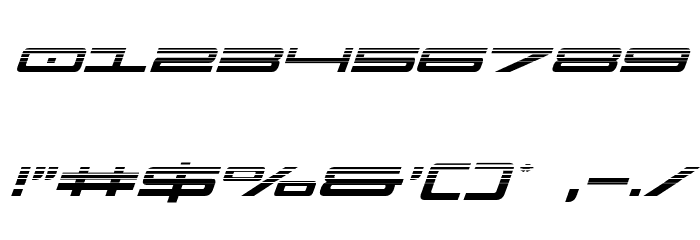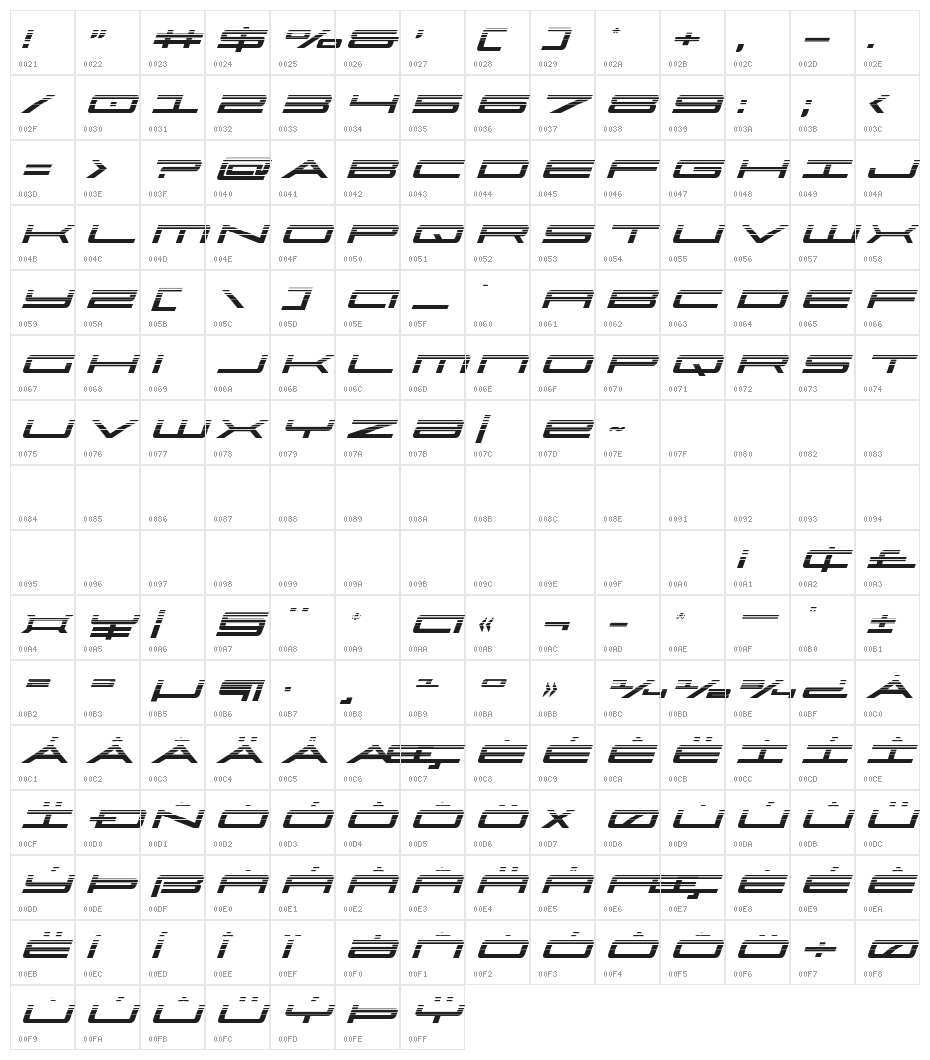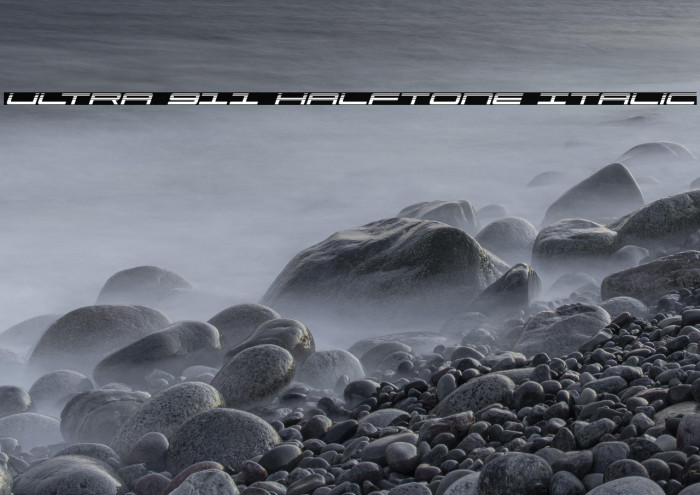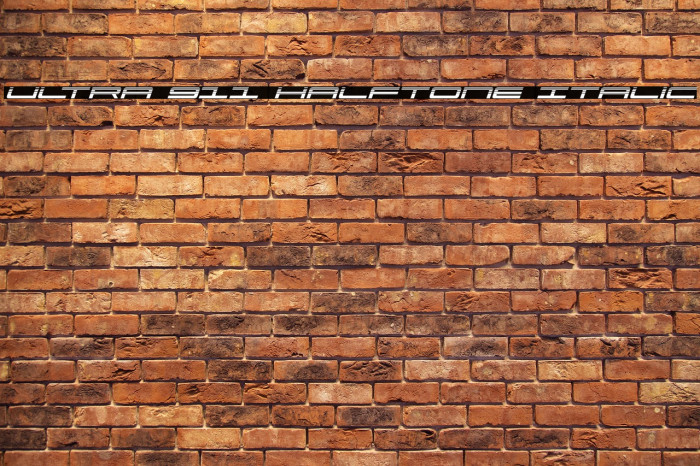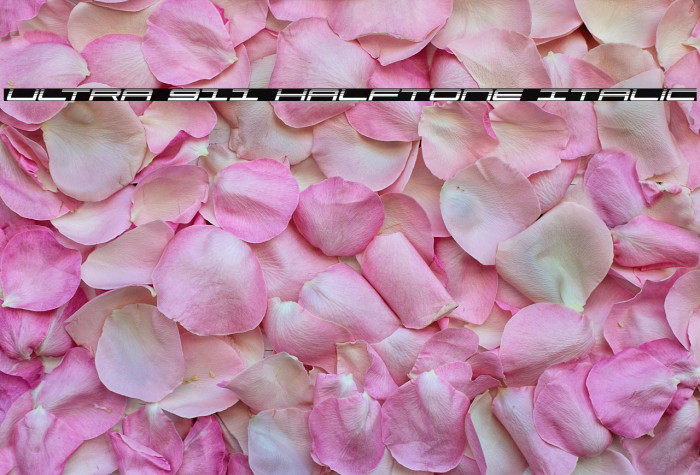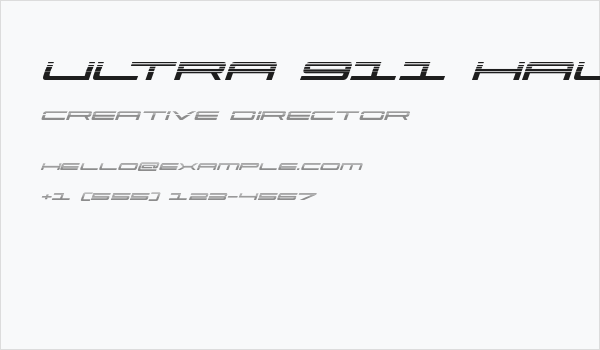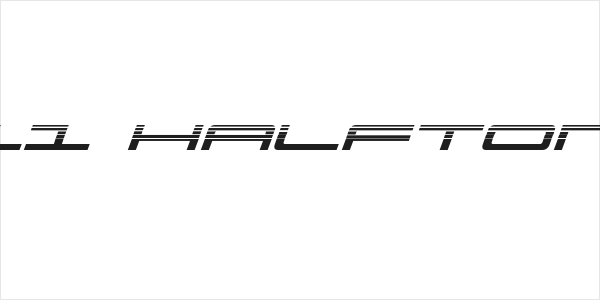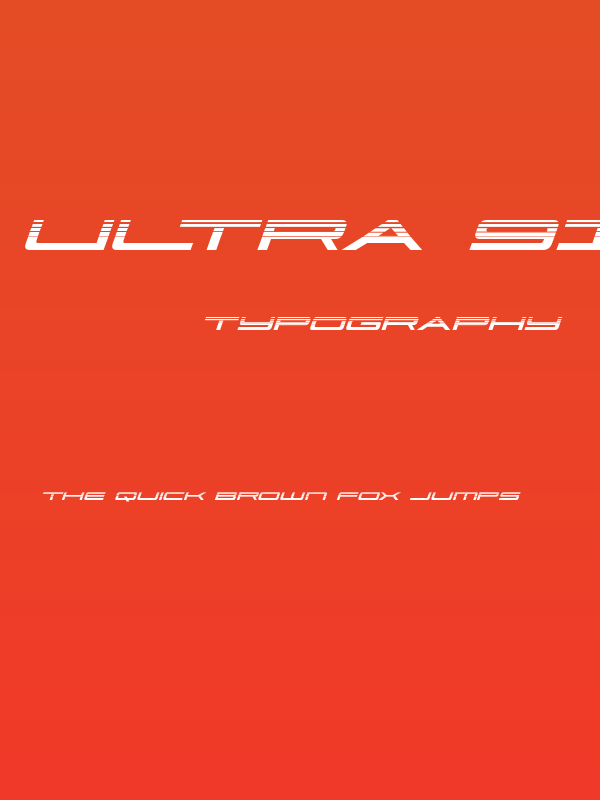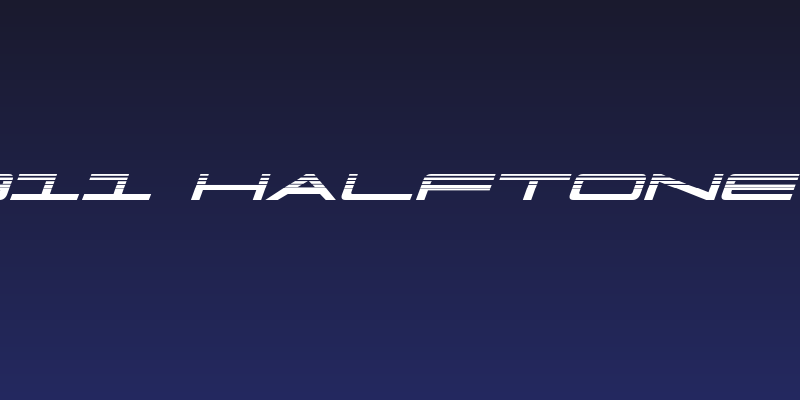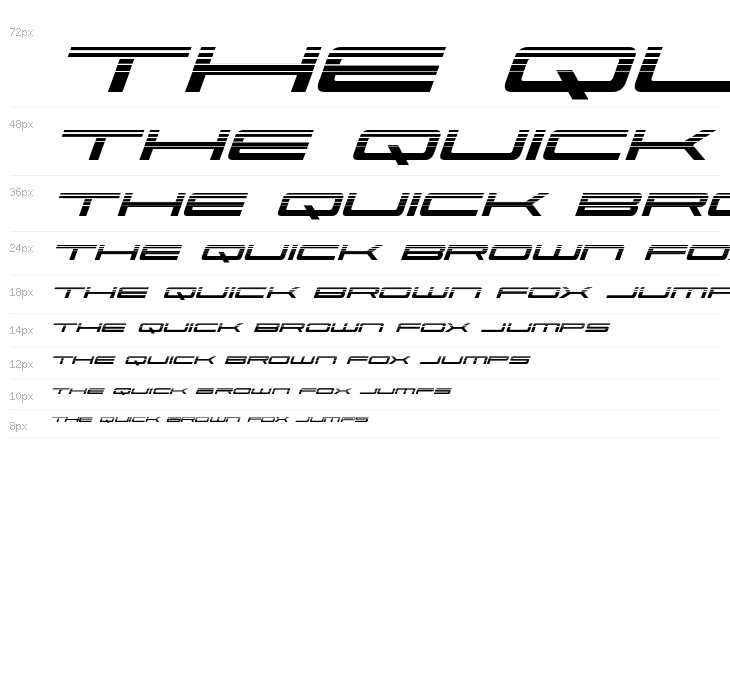
Ultra 911 Halftone Italic Font
Ultra 911 Halftone Italic Description
This font features a futuristic and dynamic design, characterized by its italicized and halftone style. The letters are sleek and elongated, with a distinct slant that adds a sense of motion and speed. The halftone effect creates a textured appearance, giving the font a modern and edgy feel. The uppercase and lowercase letters maintain a consistent style, with sharp angles and clean lines. The numerals and special characters are designed to match the overall aesthetic, ensuring a cohesive look across all text elements. This font is ideal for projects that require a bold and contemporary touch.
| Proposed Projects | Ideal for technology branding, sci-fi posters, video game titles, and automotive advertisements. |